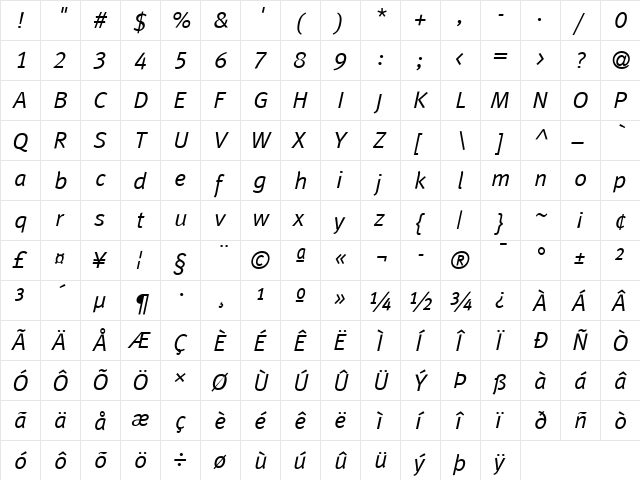
MetaKorrespondenz Italic
| Foundry | MetaDesign: Erik Spiekermann, . Published by FontShop International. FontFont Release |
Design Context for MetaKorrespondenz Typeface
MetaKorrespondenz is a composed and adaptable typeface that performs quietly and consistently across a wide range of design contexts. The slanted form adds forward momentum and visual energy.
Pro Tip: Try MetaKorrespondenz for annotation and caption copy alongside an upright companion — the contrast in angle creates a dynamic but ordered typographic system.